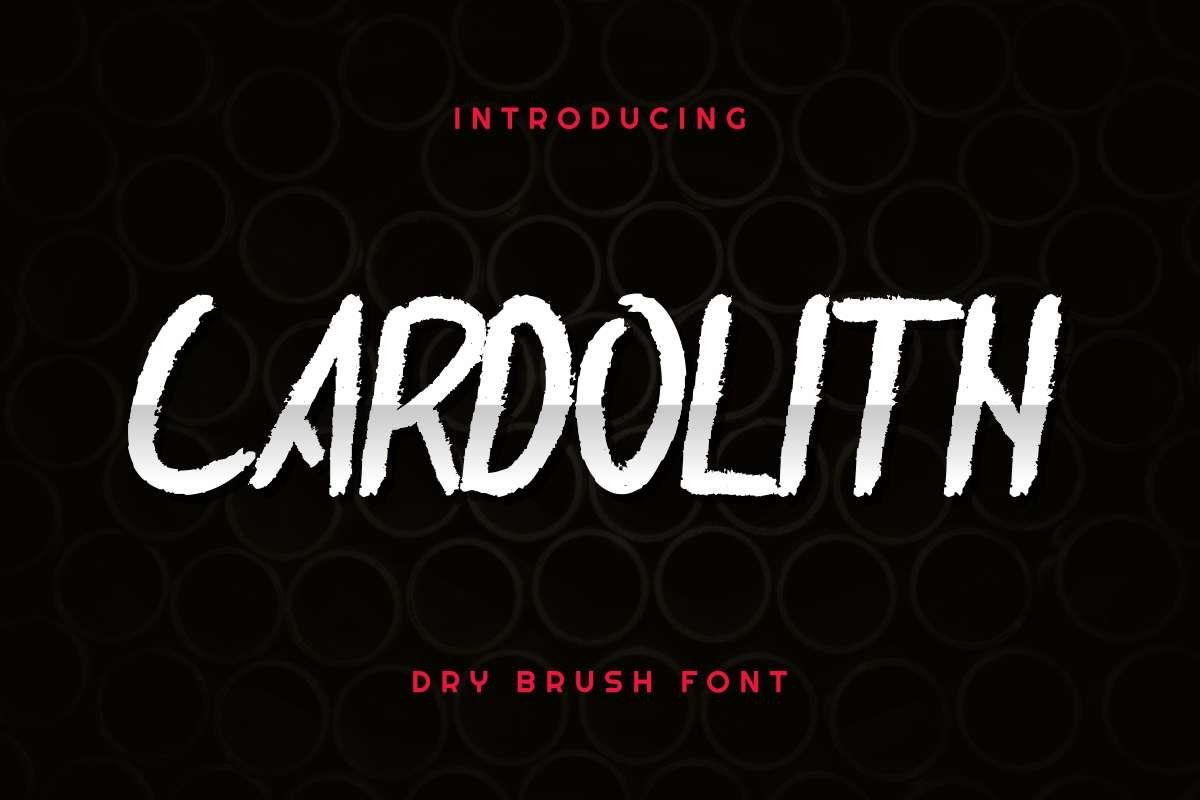
Cardolith
What’s up Everybody? Stay safe at home!From EDRIC Studio, in 2020,Please welcome! Our newest font  : Cardolith Rough FontThis is AN EXCLUSIVE display grunge font, handcrafted from our Studio here in Garut and Bandung, Indonesia. The artists/designers of this freaking tyeface is Ali and Sarah Suci.Cardolith Rough Font is a rough dry brush decorative typeface with unique style. This font has a stunning characters set, perfectly managed with well spaced and kerning. The theme style of this font will horror, mysterious, dark, freak, ghost, underground funny, fancy, unique, vintage, stylish, sophisticated and rough style. You wont find any where else, the font like Cardolith Rough Font will be great for any projects including : branding, logo, stationery, business card, signage, flyer, brochure etc. Almost all industries will be match for this typeface: wedding, events, florist, gardening, makeup artist, travel, hotel, musician etcHere’s what you’ll get on the zip pack :